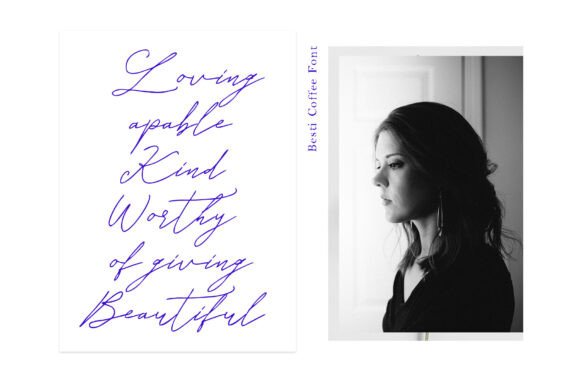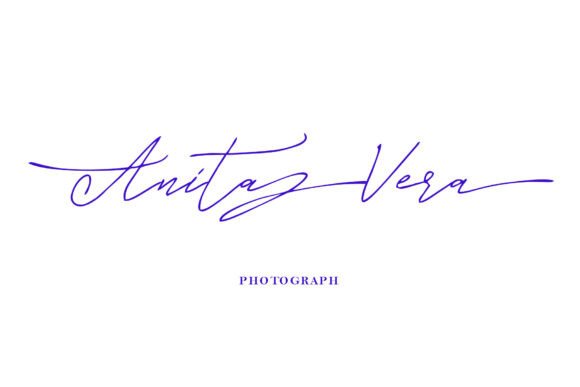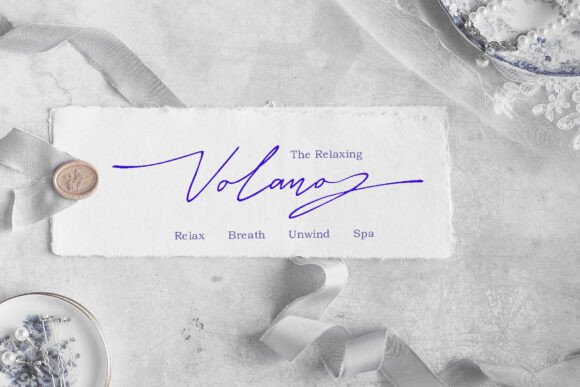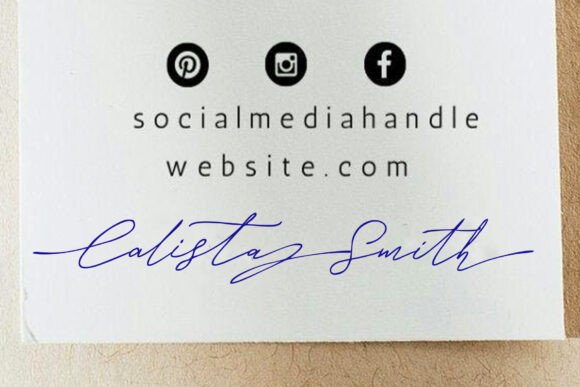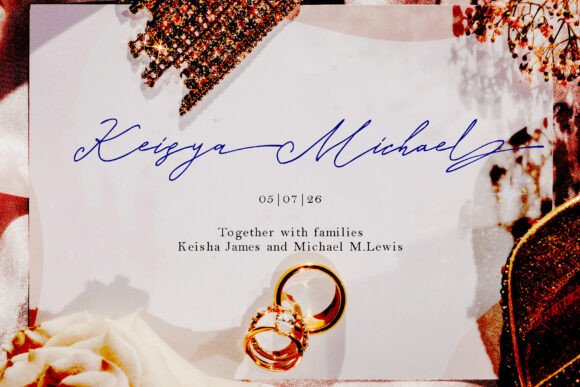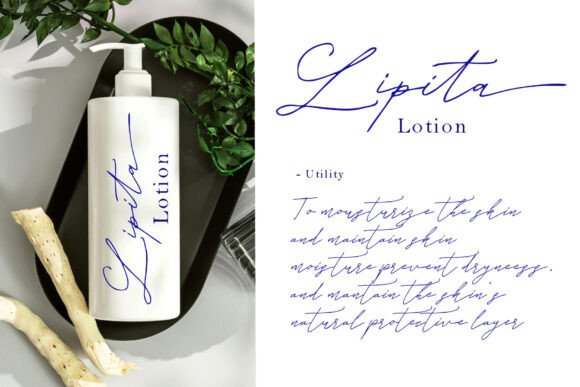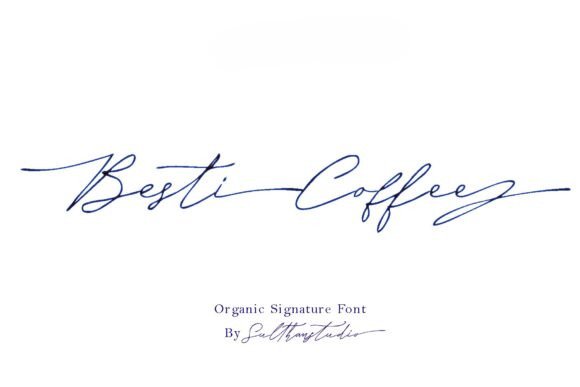
Besti Coffee Font: A Free-Flowing Organic Signature Font
Are you looking for a font that can add a personal and elegant touch to your designs? Look no further than the Besti Coffee font. This free-flowing organic signature font combines natural and modern impressions, making it perfect for designers and crafters who want to create unique and eye-catching designs.
What is Besti Coffee Font?
Besti Coffee is a carefully crafted font that is designed to provide a personal and elegant feel. The font is characterized by its free-flowing and organic signature style, which gives it a natural and modern impression. The pen strokes used in this font provide warmth and character, making it suitable for a wide range of creative needs.
Features of Besti Coffee Font
The Besti Coffee font has several features that make it a great choice for designers and crafters. Some of its key features include:
- Free-flowing organic signature style: The font has a natural and fluid style that gives it a personal and elegant feel.
- Modern impression: The font has a modern twist that makes it suitable for contemporary designs.
- Warmth and character: The pen strokes used in the font provide warmth and character, making it perfect for designs that require a personal touch.
- Handwritten style: The font has a handwritten style that is interconnected and complements other handwritten fonts.
Uses of Besti Coffee Font
The Besti Coffee font is versatile and can be used for a wide range of creative needs. Some of the ways you can use this font include:
- Branding: The font is perfect for creating unique and eye-catching brand logos and identities.
- Design: The font can be used for various design projects, including brochures, flyers, and posters.
- Invitations: The font is suitable for creating elegant and personalized invitations for weddings, parties, and other events.
- Packaging: The font can be used for packaging designs, including labels and product packaging.
Benefits of Using Besti Coffee Font
There are several benefits to using the Besti Coffee font in your designs. Some of the benefits include:
- Unique and eye-catching designs: The font helps you create unique and eye-catching designs that stand out from the crowd.
- Personal and elegant feel: The font provides a personal and elegant feel that is perfect for designs that require a touch of sophistication.
- Versatility: The font is versatile and can be used for a wide range of creative needs.
- Easy to read: The font is easy to read, making it perfect for designs that require a clear and concise message.
Tips for Using Besti Coffee Font
Here are some tips for using the Besti Coffee font in your designs:
- Use it for headlines and titles: The font is perfect for headlines and titles, where you want to make a bold statement.
- Pair it with other fonts: The font can be paired with other fonts to create a unique and eye-catching design.
- Experiment with different colors: The font looks great in different colors, so don’t be afraid to experiment and find the perfect color for your design.
- Use it for digital and print designs: The font is suitable for both digital and print designs, making it a great choice for designers who work on a wide range of projects.
| Font Name | Besti Cofee Font |
| Author | Sulthan Studio |
The Besti Coffee font is a great choice for designers and crafters who want to create unique and eye-catching designs. Its free-flowing organic signature style, modern impression, and warmth and character make it perfect for a wide range of creative needs. Whether you’re looking to create a brand logo, design a brochure, or create an invitation, the Besti Coffee font is a great choice.